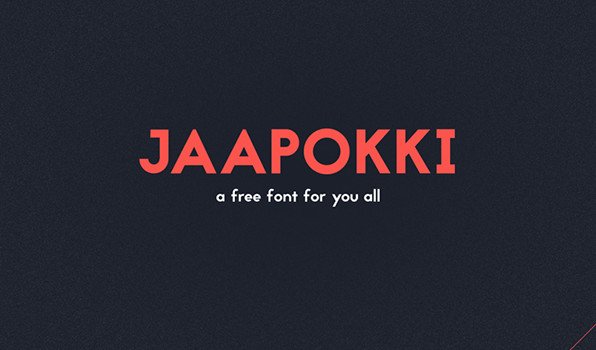
Jaapokki Typeface
Hey everyone! I’m glad to introduce you new decorative Jaapokki Typeface! Jaapokki designed and shared by Mikko Nuuttila. Jaapokki a minimalis typeface and awesome character with 3 different style. Jaapokki it’s perfect for namecard, poster, logo, magazine, cover, banner, tshirt and headers, or even large-scale artwork.